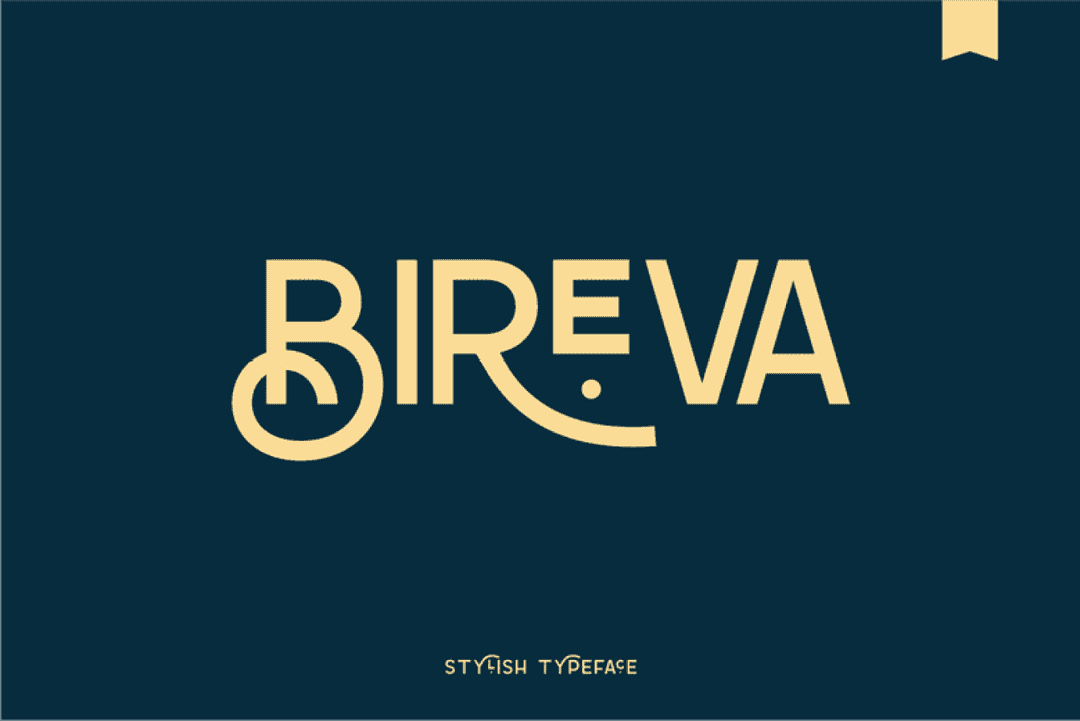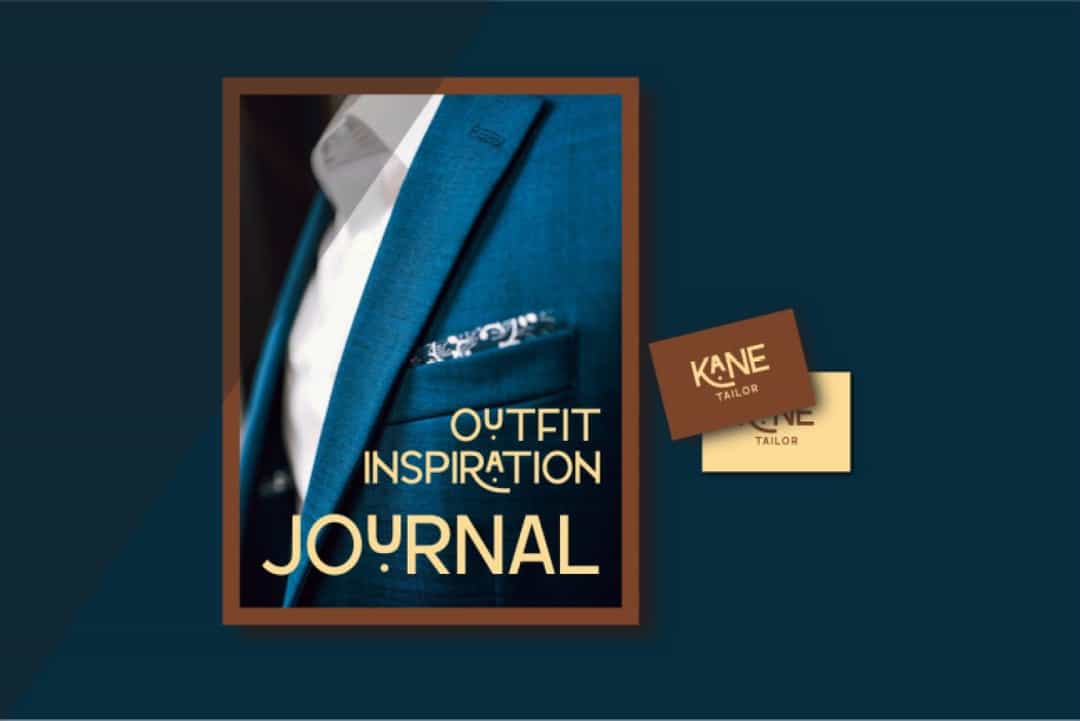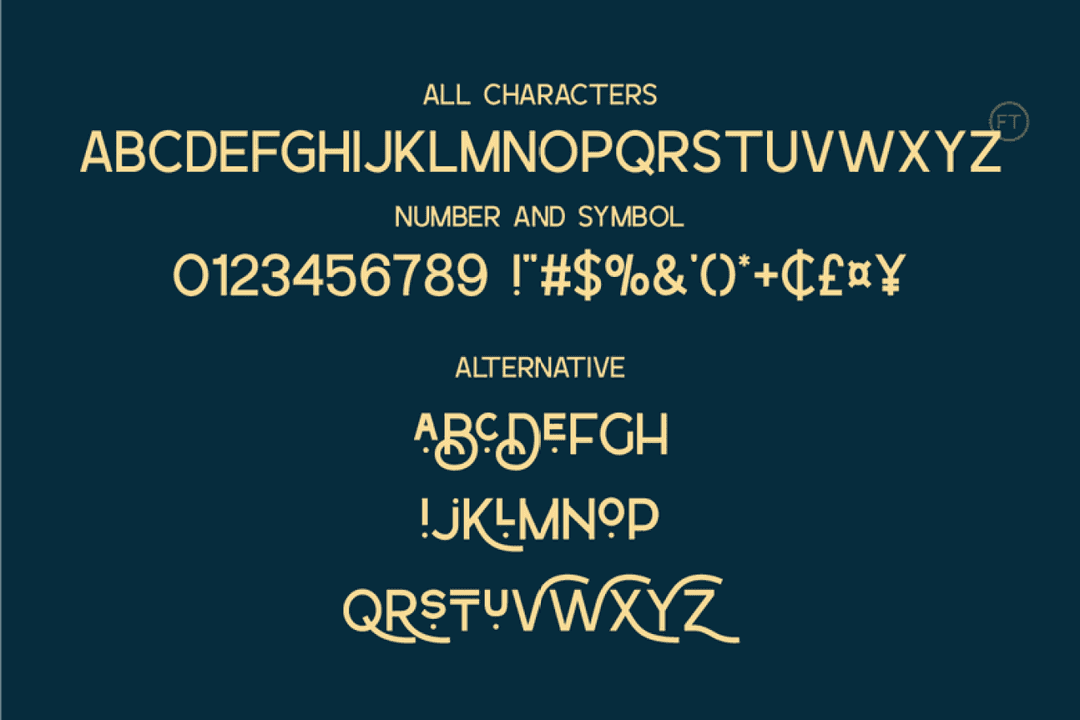
Bireva is an expressive sans serif font with geometric and confident details that makes for versatile use across any project. Use it for creating quotes or indentations on packaging, books covers or business cards or pair it with another script style font! Additionally, Bireva supports multilingual capabilities.